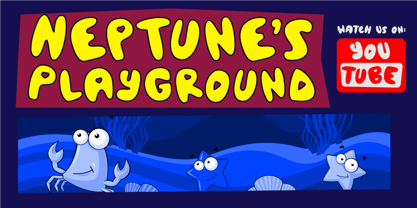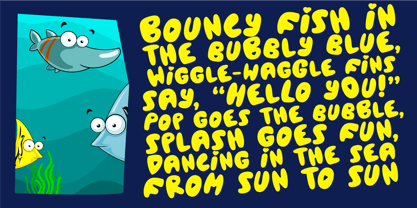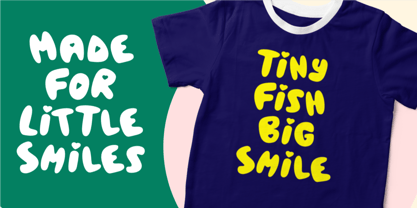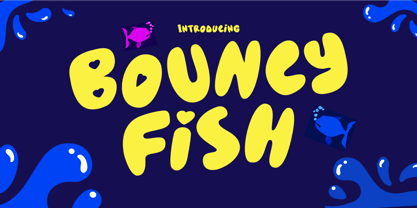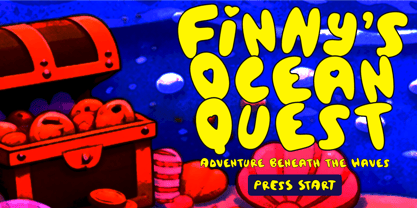
Bouncy Fish
by Epiclinez
The Bouncy Fish Font Family was designed by Aldy Sidik and published by Epiclinez. Bouncy Fish contains 1 styles.
Bouncy Fish is a cute, playful display font inspired by happy ocean vibes and bubbly fun. With its rounded shapes, soft curves, and joyful personality, this font feels lively, friendly, and full of motion—just like a little fish bouncing through the sea. Perfect for kids' projects, children’s books, water park branding, aquarium themes, games, toys, apparel, stickers, packaging, and cheerful logos. Bouncy Fish brings a sense of fun, innocence, and imagination, making every design feel bright, warm, and full of smiles. Whether you’re creating a kids game title, playful clothing brand, or ocean-themed illustration, Bouncy Fish adds instant charm and friendliness to your typography